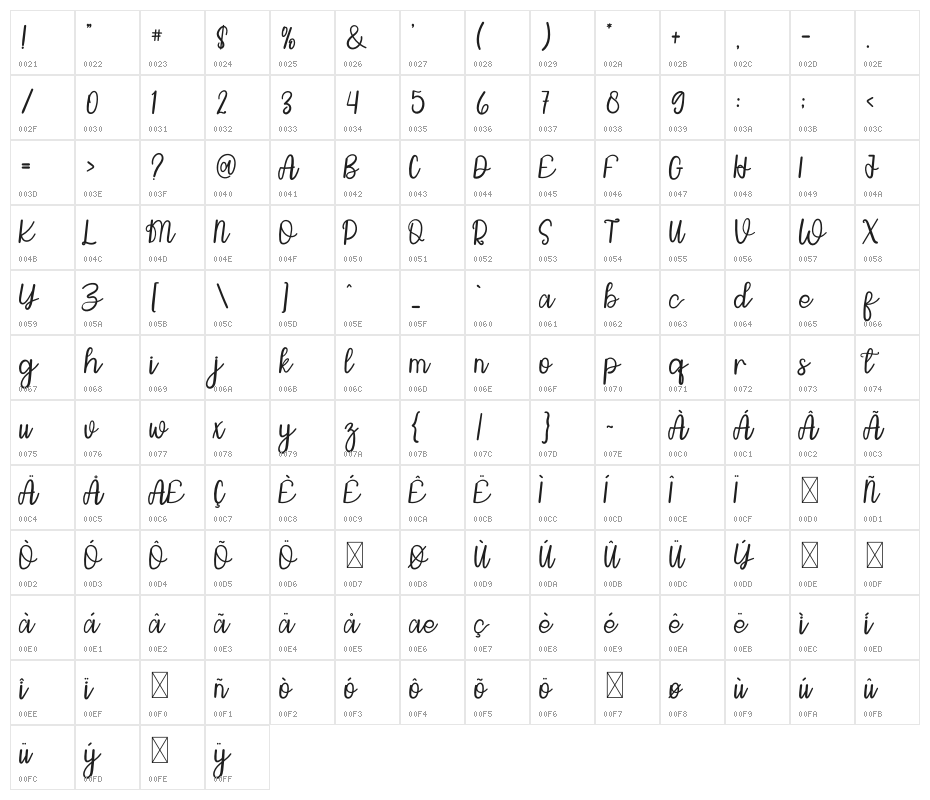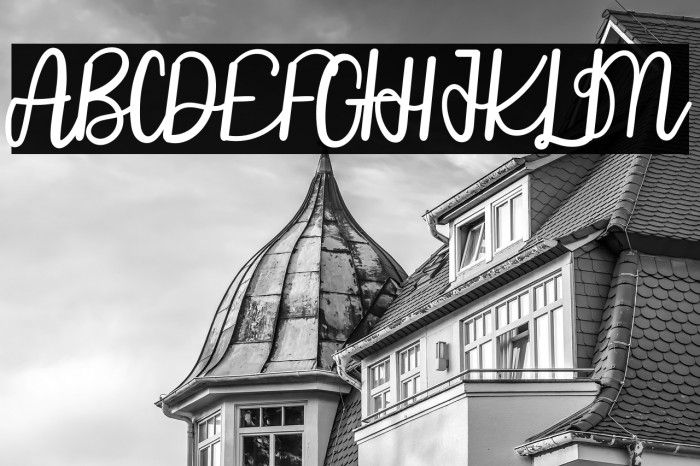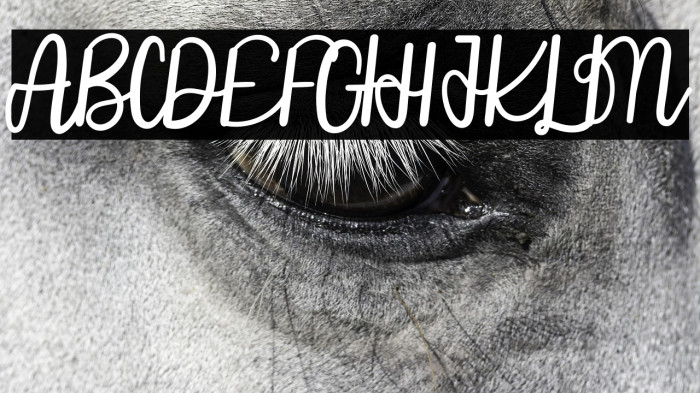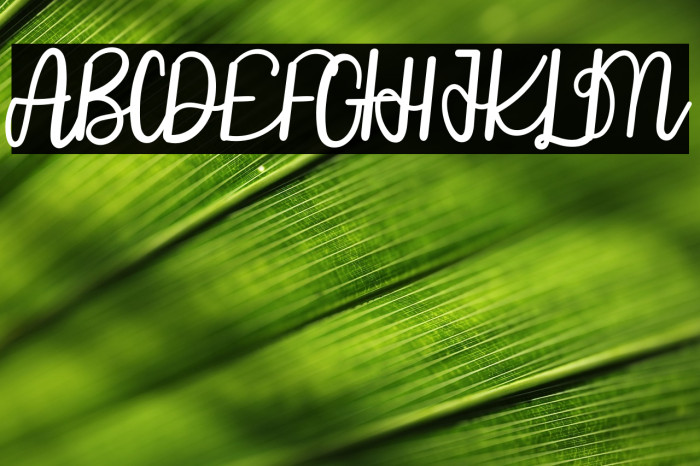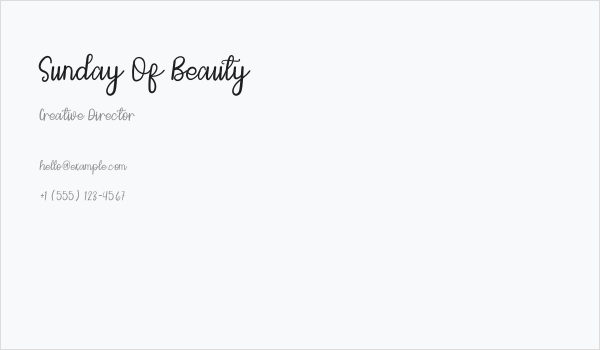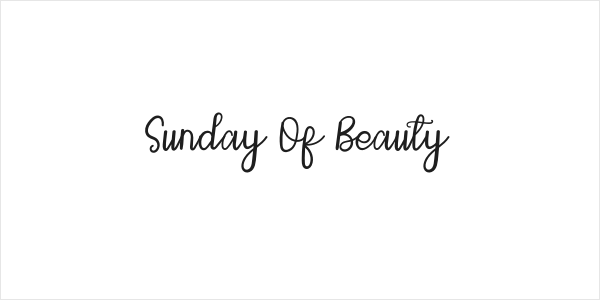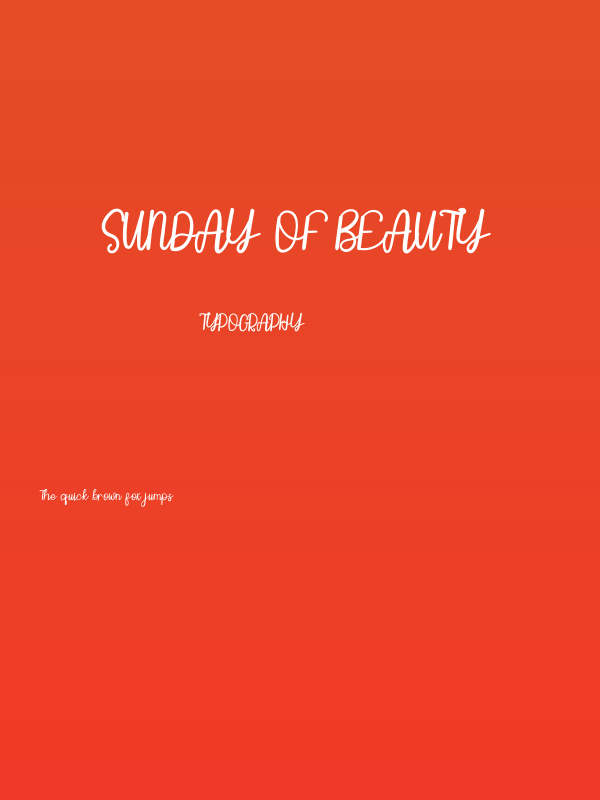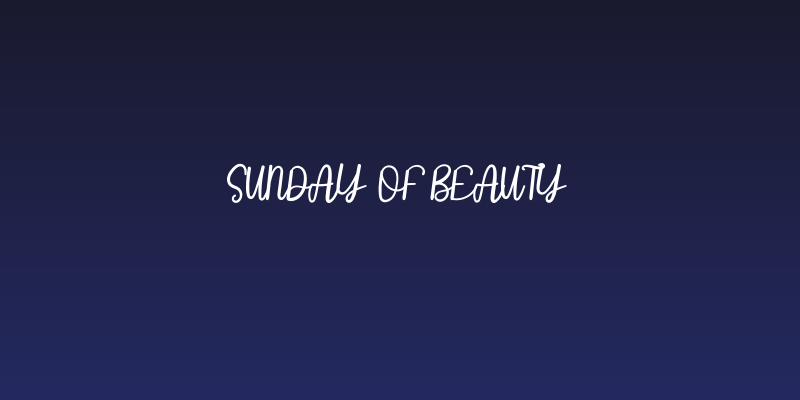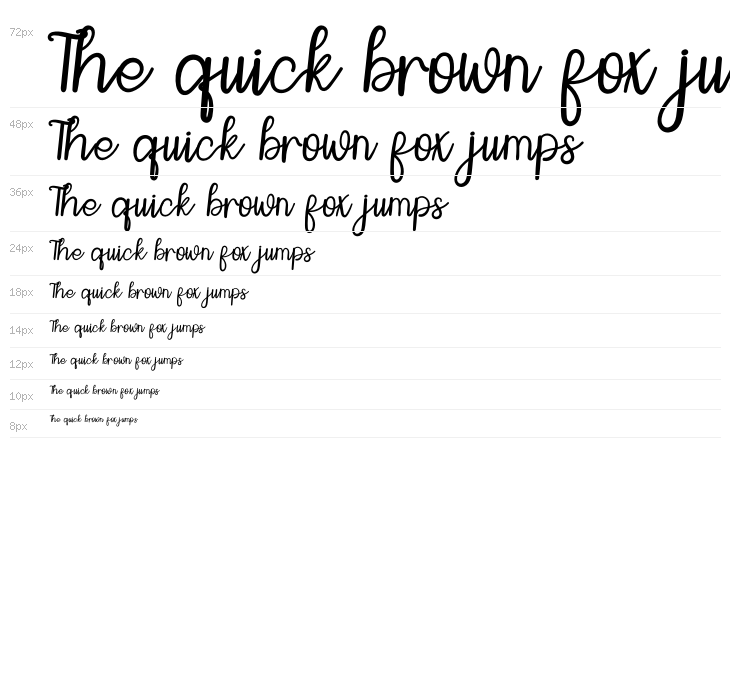
Sunday Of Beauty Font
Sunday Of Beauty Description
This font features a flowing, cursive style with a handwritten appearance, characterized by smooth, continuous strokes that connect most of the letters. The uppercase letters are bold and elegant, while the lowercase letters maintain a consistent fluidity, enhancing the script's overall charm. Numbers and special characters are designed to match the script's playful yet sophisticated aesthetic, making it versatile for various design needs. The font's organic curves and loops give it a friendly and approachable feel, suitable for projects that require a personal touch.
| Use Case | Logos, Invitations, Social Media |
| Proposed Projects | Ideal for wedding invitations, greeting cards, branding, and social media graphics. |